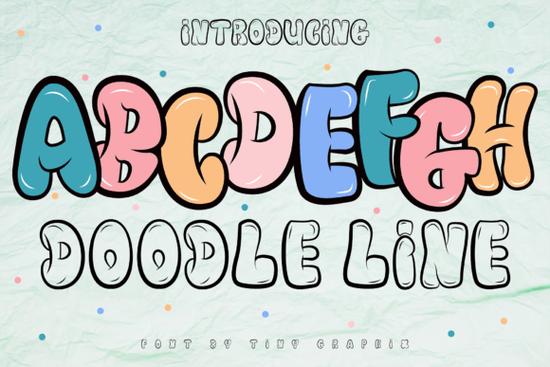
If you’re looking for a font that feels alive with energy and personality, the Doodle Line Font might be exactly what your next project needs. It’s not your average clean sans-serif this one carries the spirit of street art, with loose, hand-drawn strokes that feel spontaneous but still legible. Whether you’re designing logos, branding materials, game assets, or even kids’ party invites, this font brings a playful edge without sacrificing clarity.
What makes it especially useful is how well it fits into projects that need to stand out think t-shirts, stickers, YouTube thumbnails, or mobile game UIs. The lines have just enough bounce and variation to feel human, like they were sketched with spray paint or marker on a city wall. And because it’s a display font, you don’t need to worry about long paragraphs it shines in headlines, titles, and short phrases.
Who should use Doodle Line Font?
If you run a small business selling handmade goods or POD products, this font can help your packaging or social media graphics pop. Crafters love it for scrapbooking, vinyl cutting, and sublimation projects because the bold outlines hold up well at different sizes. Game developers and indie studios also find it handy for menus, character names, or splash screens it adds instant attitude without needing extra illustration work.
Even if you’re just making birthday cards or classroom posters, Doodle Line gives your text that “I made this myself” charm. It pairs surprisingly well with cleaner fonts too try setting body text in something neutral like Helvetica or Montserrat, then letting Doodle Line take center stage for headers.
How does it compare to other graffiti-style fonts?
Not all street-inspired fonts are created equal. Some feel stiff or overly digital. Others are so messy they become unreadable. Doodle Line strikes a balance it’s got character, but doesn’t sacrifice function.
If you’ve used Trup Tomp before, you’ll notice Doodle Line has more organic curves and less rigid structure. For those who liked the retro-kitsch vibe of Rainbow Memories, this font trades pastel nostalgia for urban grit. And while Creative Vintage leans into classic sign-painter aesthetics, Doodle Line feels like it belongs on skateboards and arcade cabinets.
It’s also more versatile than Rainbow Darling Duo, which leans heavily into cutesy rainbows and hearts. Doodle Line can go cute too especially when paired with bright colors but it can also handle edgier themes like hip-hop merch or action-packed game titles. If you’re nostalgic for 90s arcade culture, check out Retro Magic as a companion its pixel-inspired letters make a fun contrast to Doodle Line’s freehand flow.
What kinds of projects work best with this font?
- Branding for youth-focused businesses skate shops, sneaker stores, gaming cafes.
- YouTube thumbnails and Twitch overlays grabs attention without being overwhelming.
- Print-on-demand designs works great on hoodies, mugs, tote bags, and phone cases.
- Children’s books or educational materials feels friendly and approachable.
- Event posters and flyers especially for block parties, music festivals, or gaming tournaments.
One thing to keep in mind: since it’s a display font, avoid using it for body text or fine print. Stick to headlines, buttons, badges, and short taglines. You’ll get the most impact that way.
Any tips for styling it?
A little goes a long way. Try these simple tweaks to make your design sing:
- Add a subtle stroke or shadow helps the letters pop off busy backgrounds.
- Use bright, saturated colors neon greens, hot pinks, electric blues match the font’s energy.
- Pair with minimalist icons or photos lets the font be the star without visual clutter.
- Don’t overdo effects skip heavy gradients or 3D extrusions; the font already has plenty of texture.
You can see how others have styled it by checking out Doodle Line Font on Creative Fabrica there are real user examples, mockups, and bundles that show it in action.
Quick checklist before you download:
- ✅ Confirm your project needs a bold, casual, hand-drawn look.
- ✅ Check if you’re using it for headlines or short text (not paragraphs).
- ✅ Preview it with your brand colors or background images.
- ✅ Pair it with a simple sans-serif for contrast and readability.
Start small. Try it on one social post or product mockup before committing to a full rebrand. Sometimes the best fonts are the ones that surprise you and Doodle Line has a way of turning even basic text into something that feels alive.